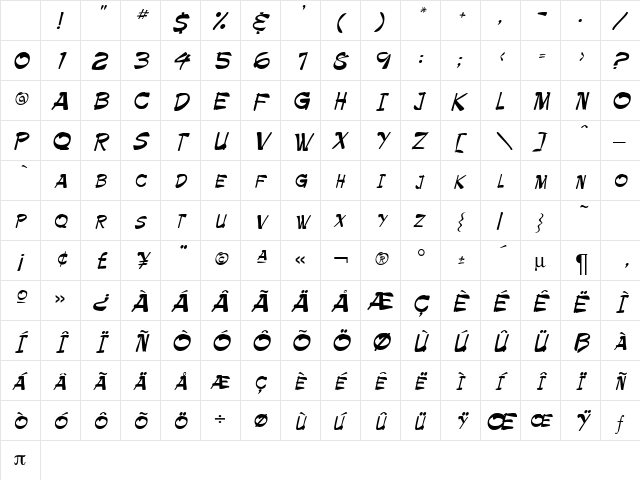
Complete PainterDB Normal glyph index. Displaying only characters natively supported by PainterDB Normal font.
PainterDB is a composed and adaptable typeface that performs quietly and consistently across a wide range of design contexts.